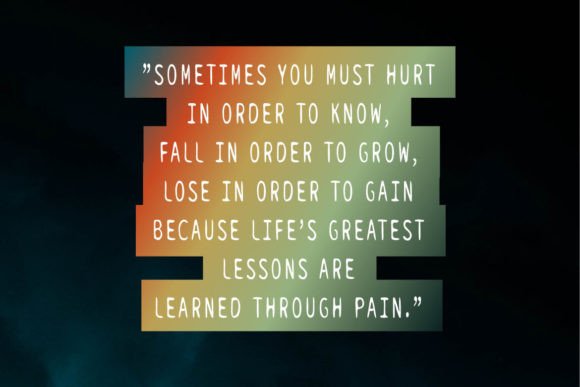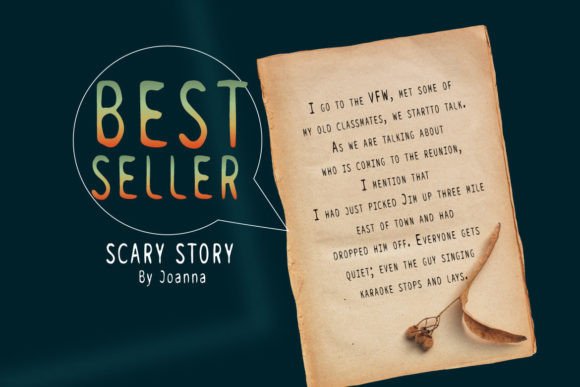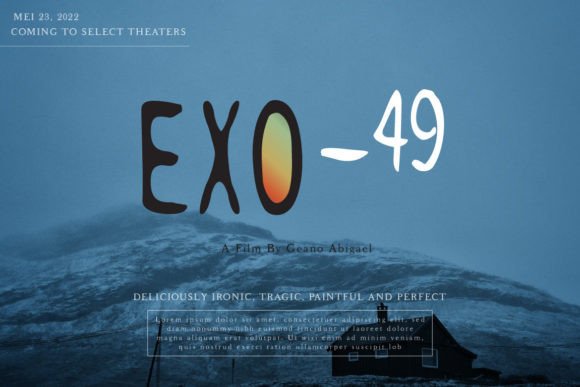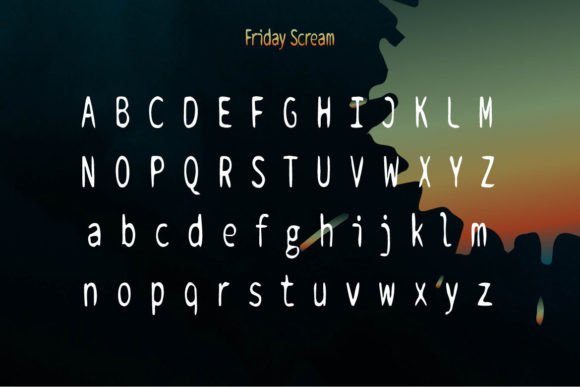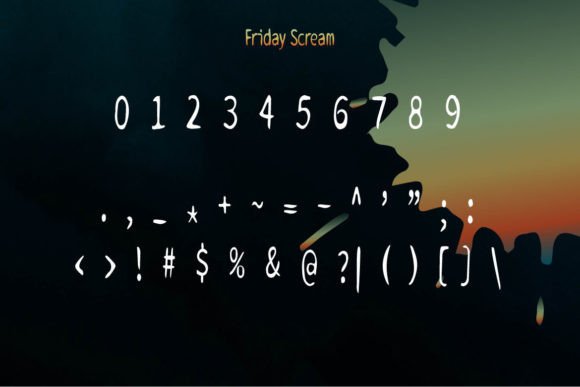
Unleash the Terror with Friday Scream Font: A Spooky Display Font for Horror-Themed Designs
Are you a designer or crafter looking for a font that will send shivers down the spine of your audience? Look no further than the Friday Scream Font, a scary and mysterious display font that’s perfect for creating unique horror-themed designs. With its spooky vibe and eerie feel, this font is sure to add a touch of terror to your projects.
The Perfect Font for Horror-Themed Designs
Friday Scream Font is a display font that’s specifically designed to evoke a sense of fear and unease. Its distorted and irregular shapes give it a creepy, hand-drawn feel that’s perfect for creating horror-themed designs. Whether you’re working on a project for a horror movie, a haunted house, or a spooky-themed party, this font is sure to set the tone for a terrifying experience.
Key Features of Friday Scream Font
So, what makes Friday Scream Font so special? Here are just a few of its key features:
- Scary and mysterious vibe: Friday Scream Font has a spooky vibe that’s perfect for creating horror-themed designs.
- Distorted and irregular shapes: The font’s distorted and irregular shapes give it a creepy, hand-drawn feel.
- Eerie and unsettling: The font’s eerie and unsettling feel is sure to send shivers down the spine of your audience.
- Perfect for display text: Friday Scream Font is specifically designed for display text, making it perfect for headlines, titles, and other large text elements.
How to Use Friday Scream Font in Your Designs
So, how can you use Friday Scream Font in your designs? Here are a few ideas to get you started:
- Horror movie posters: Use Friday Scream Font to create terrifying posters for horror movies.
- Haunted house designs: Use the font to create spooky signs and displays for haunted houses and haunted attractions.
- Spooky-themed parties: Use Friday Scream Font to create invitations, decorations, and other materials for spooky-themed parties.
- Horror-themed merchandise: Use the font to create horror-themed merchandise, such as t-shirts, stickers, and other items.
Tips for Getting the Most Out of Friday Scream Font
Here are a few tips for getting the most out of Friday Scream Font:
- Use it sparingly: Because Friday Scream Font is so bold and attention-grabbing, it’s best to use it sparingly. Use it for headlines and titles, and then switch to a more readable font for body text.
- Experiment with different colors: Friday Scream Font looks great in a variety of colors, from blood red to eerie green. Experiment with different colors to find the one that works best for your design.
- Combine it with other fonts: Friday Scream Font pairs well with a variety of other fonts. Try combining it with a more readable font to create a striking contrast.
In conclusion, Friday Scream Font is a scary and mysterious display font that’s perfect for creating unique horror-themed designs. With its spooky vibe and eerie feel, this font is sure to add a touch of terror to your projects. Whether you’re a designer or crafter, Friday Scream Font is a great choice for anyone looking to create horror-themed designs that will leave a lasting impression.